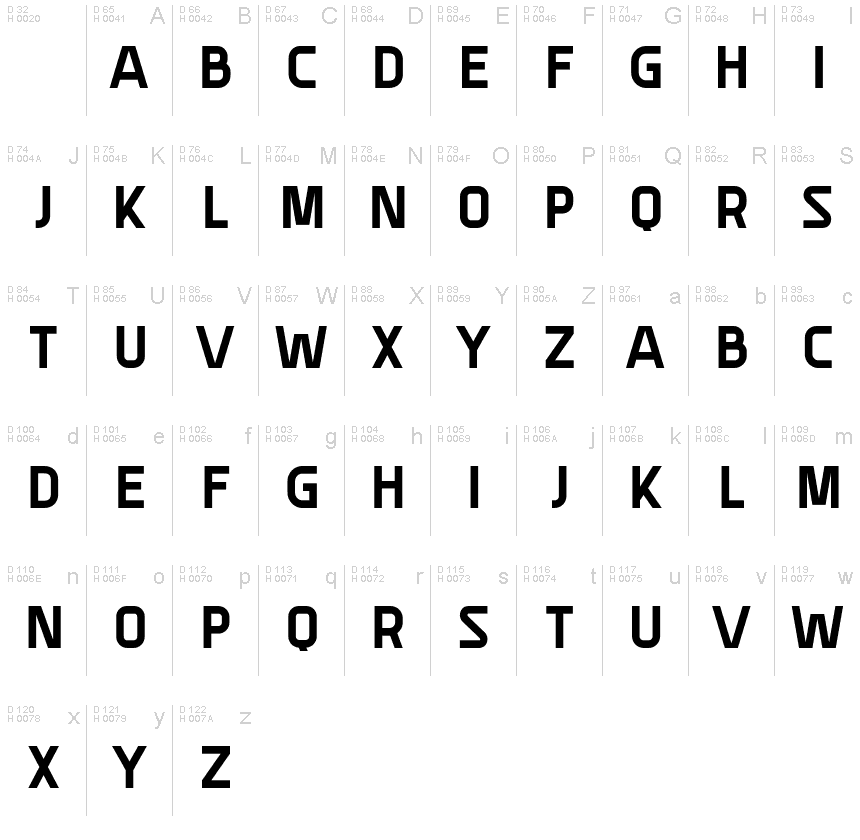
Montsalvat Regular
Montsalvat, designed by Vladimir Nikolic, is a dynamic and versatile sans serif font with a semi-bold weight. Its clean and modern lines make it suitable for various creative projects. For elegant branding and logo design, Montsalvat adds a touch of sophistication.
Its readability also makes it perfect for websites, blogs, and digital content. With its semi-bold style, this font lends itself well to eye-catching headings and subheadings in magazines or brochures. Montsalvat brings a contemporary edge to posters, packaging designs, and even social media graphics – capturing attention effortlessly.